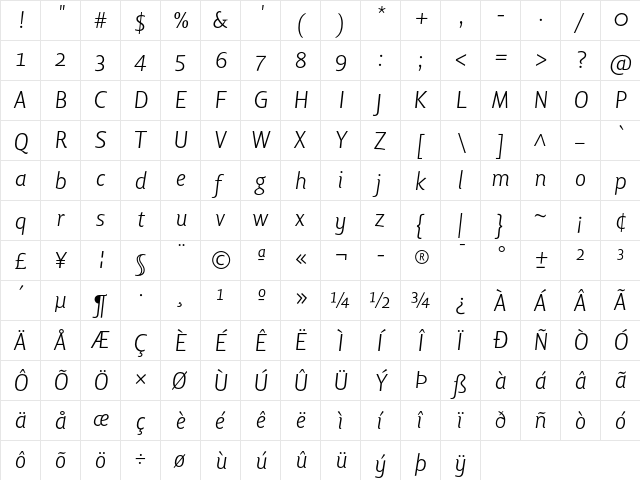
Lisboa OSF Light Italic
Design Context for Lisboa OSF Light Typeface
Lisboa OSF Light offers clean, dependable letterforms without strong stylistic allegiance, making it a practical choice for designers who need flexibility. The dynamic lean of this cut emphasises speed and emphasis in any layout. The delicate stroke weight brings airiness and refinement to layouts.
Pro Tip: Use Lisboa OSF Light for emphasis, pull quotes, and subheadings where its slanted energy can add rhythm to the layout.